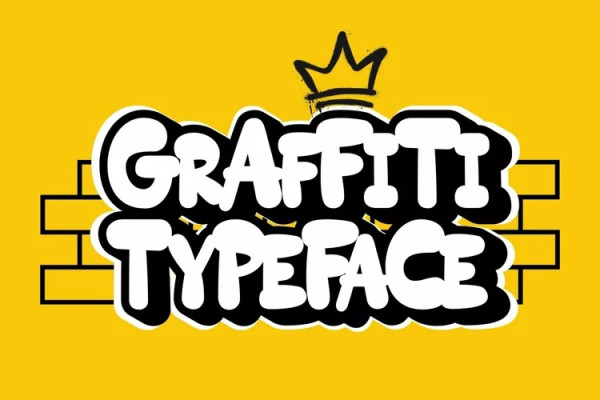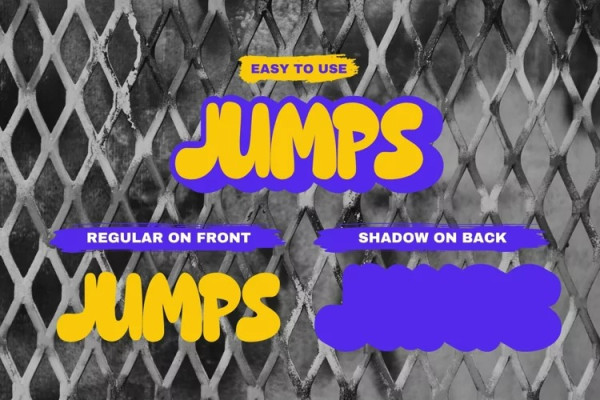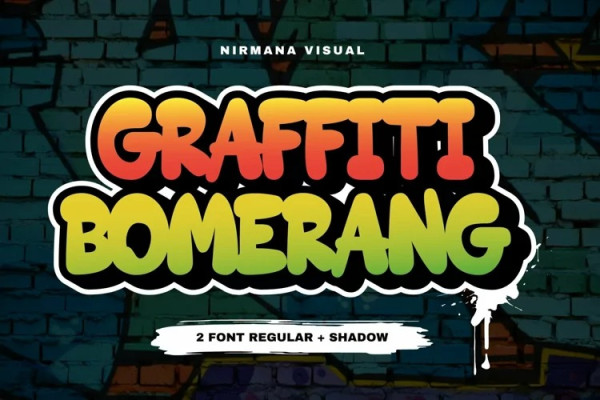
Graffiti Bomerang Font
Graffiti Bomerang Font, offers beautiful typographic harmony for a diversity of design projects, including logos & branding, social media posts, advertisements & product designs.